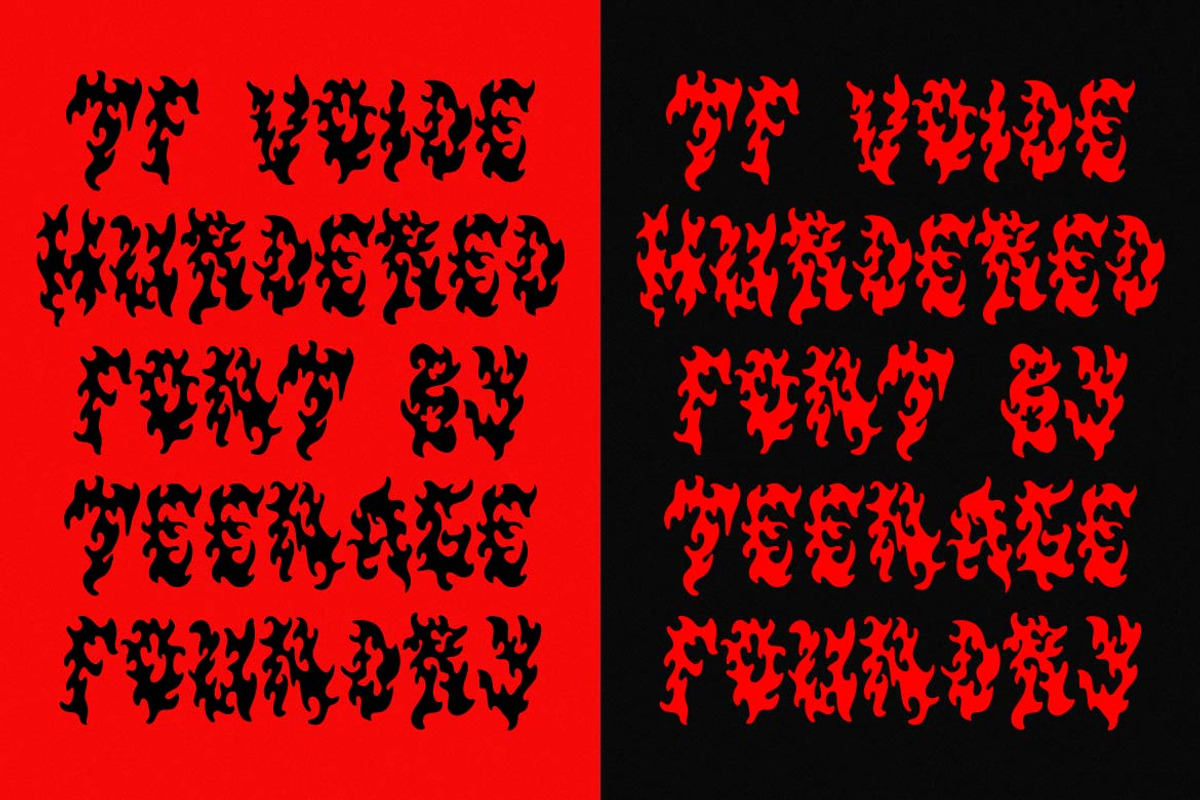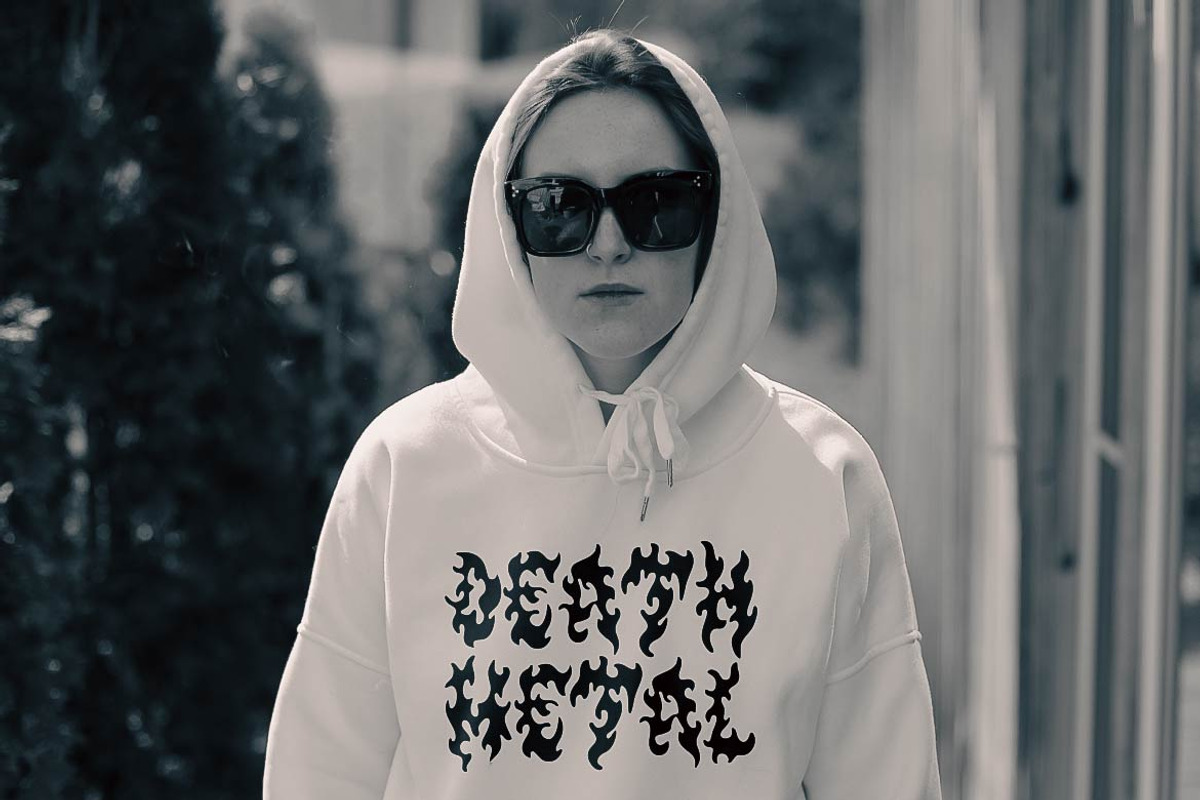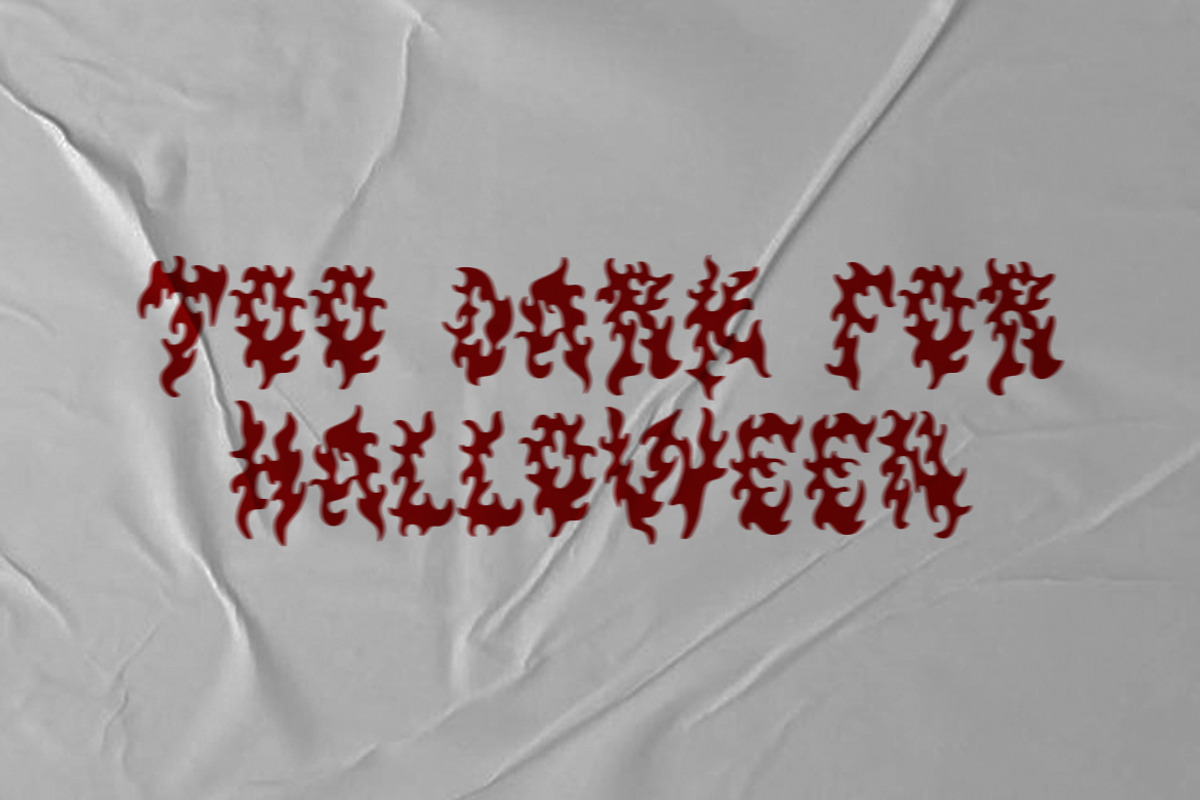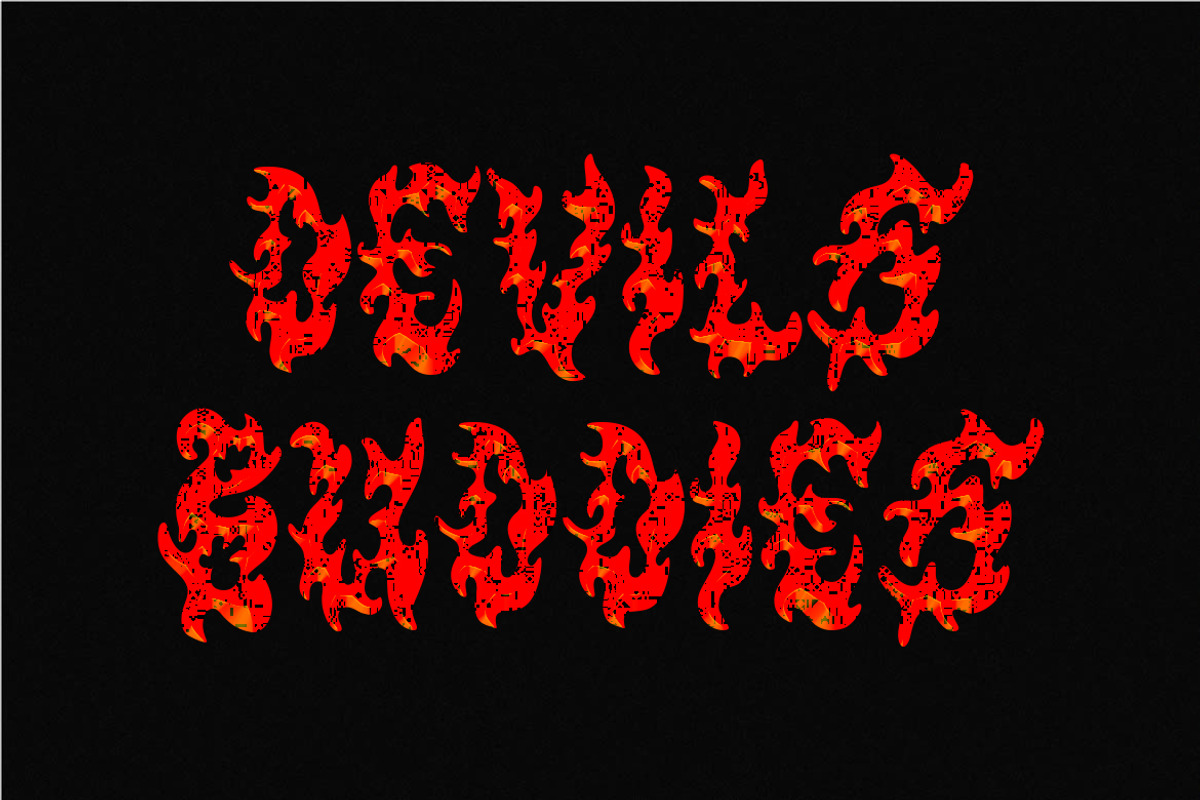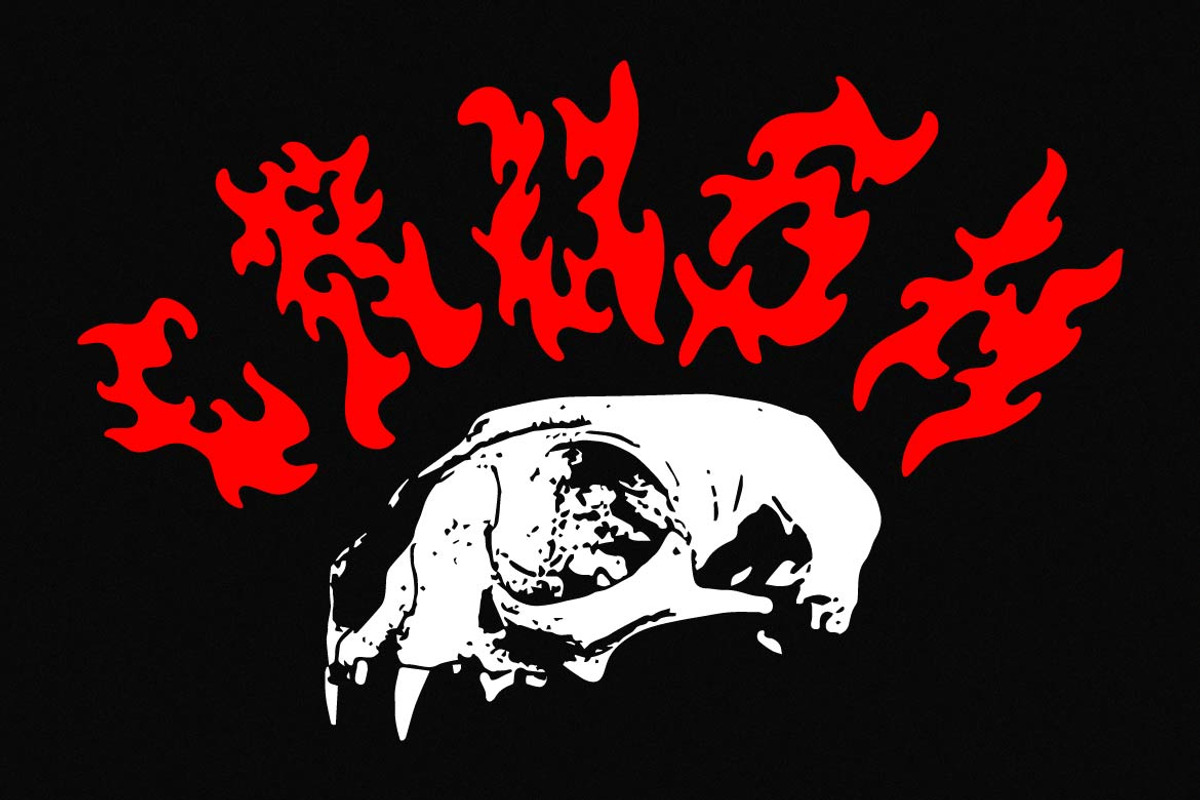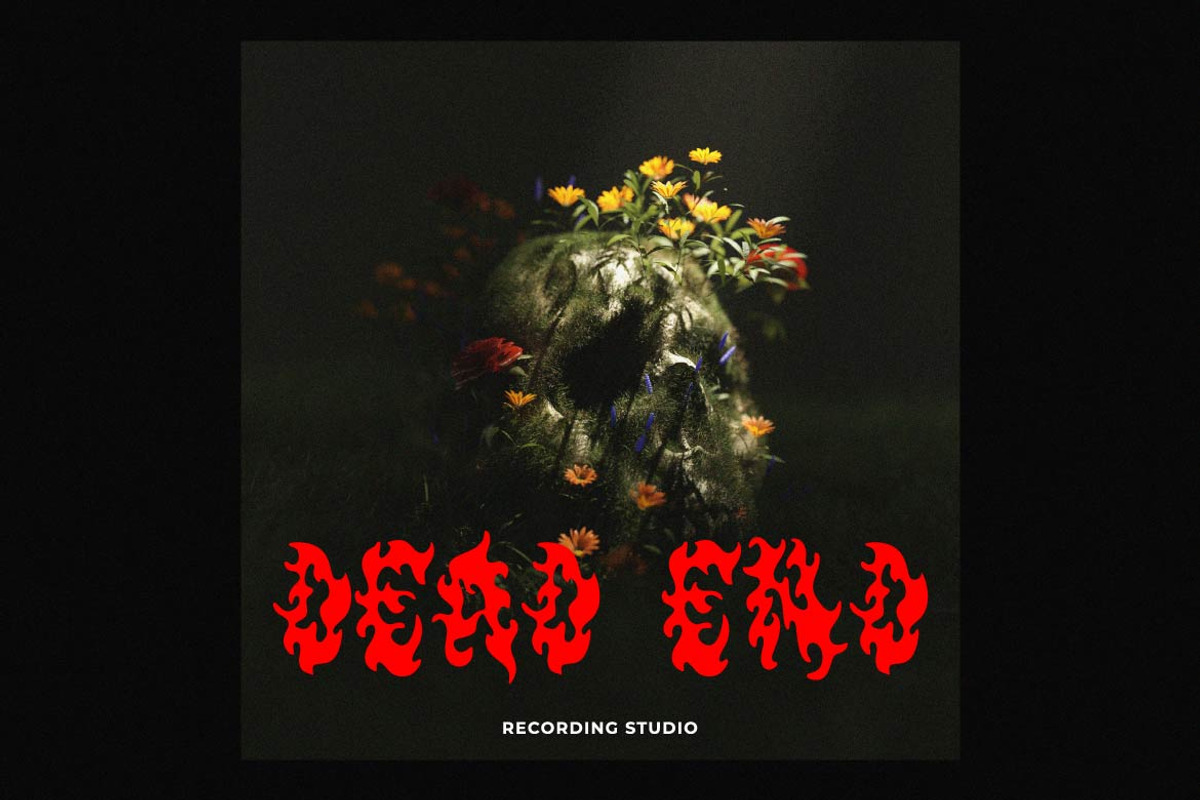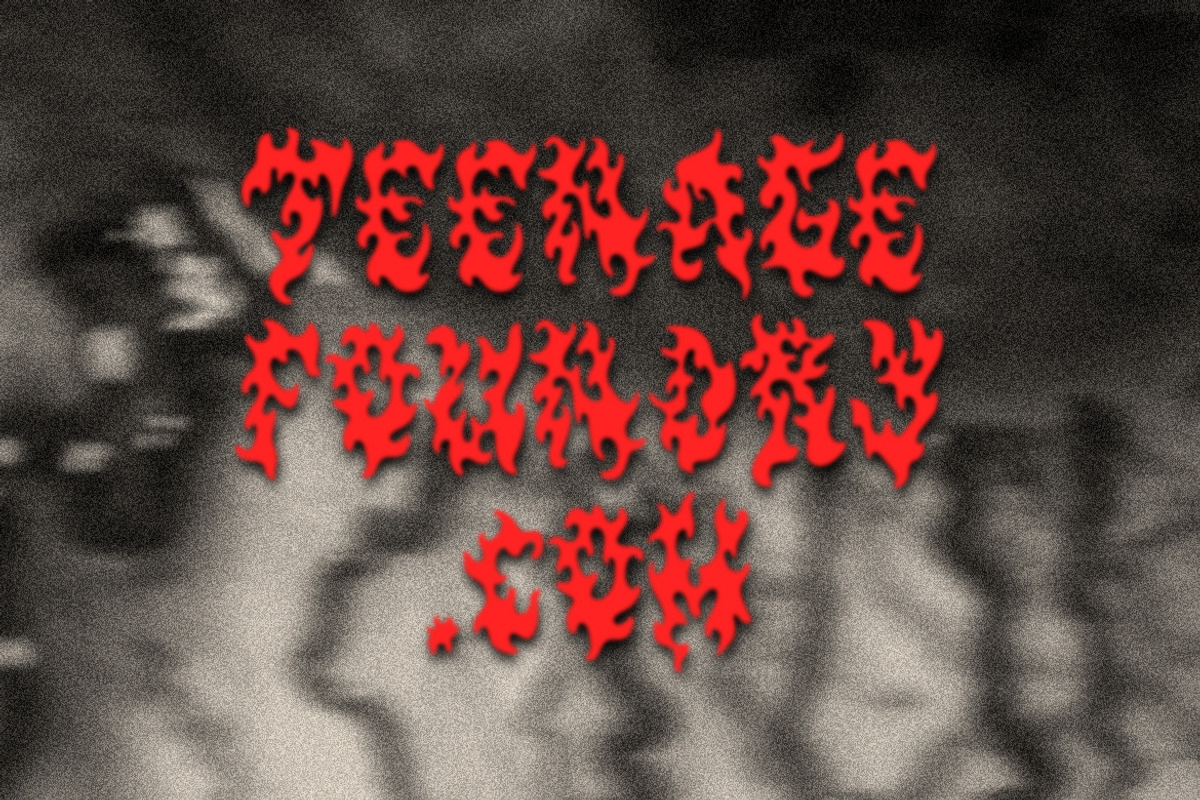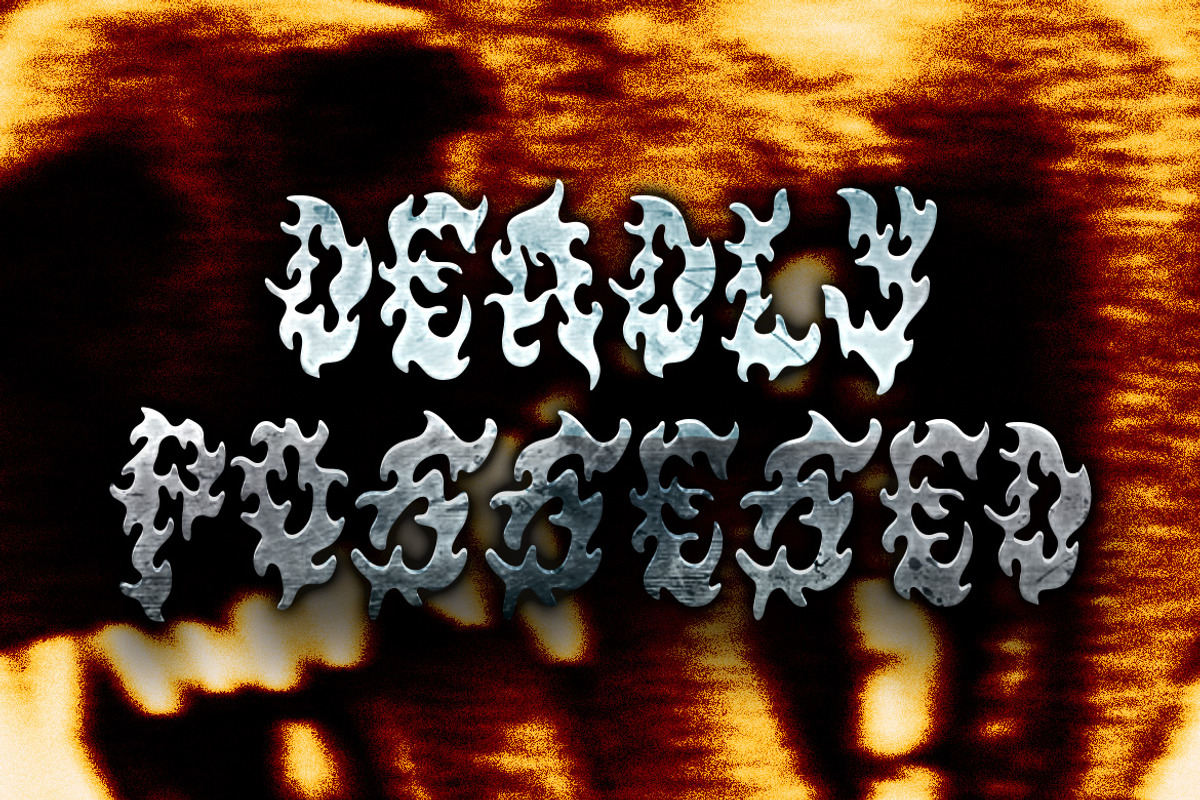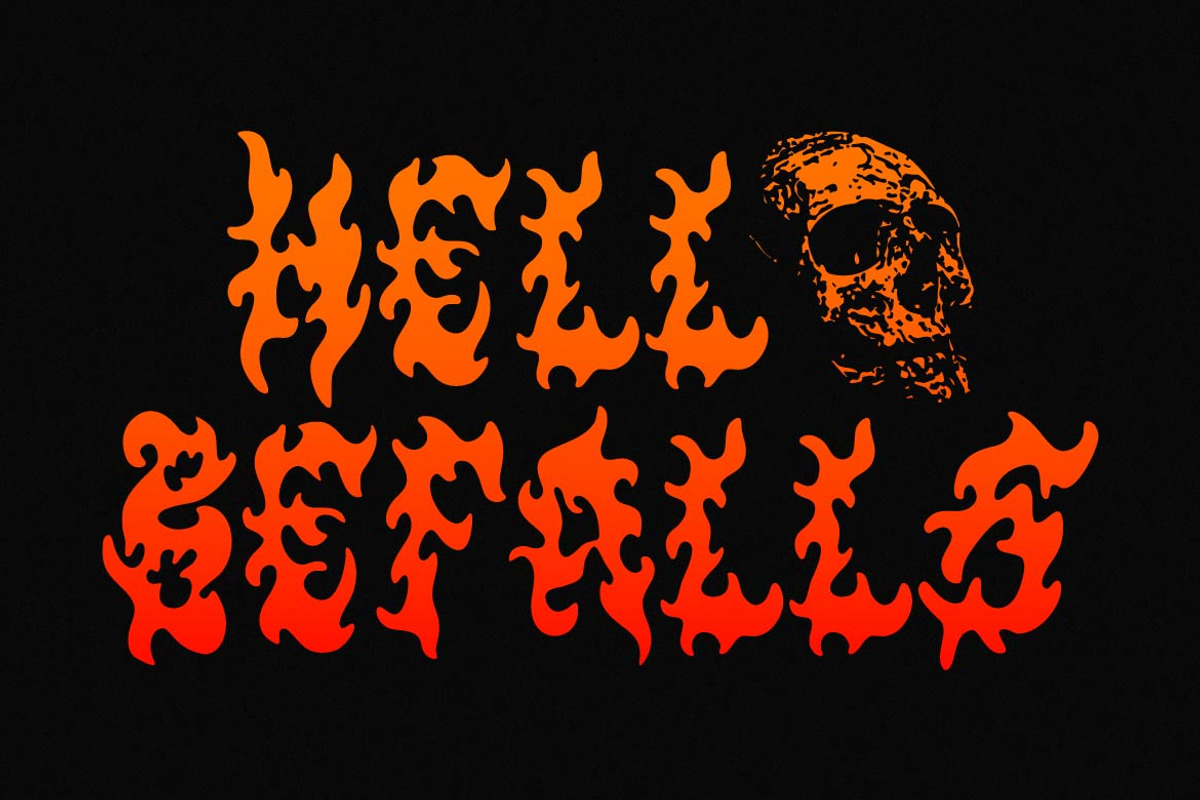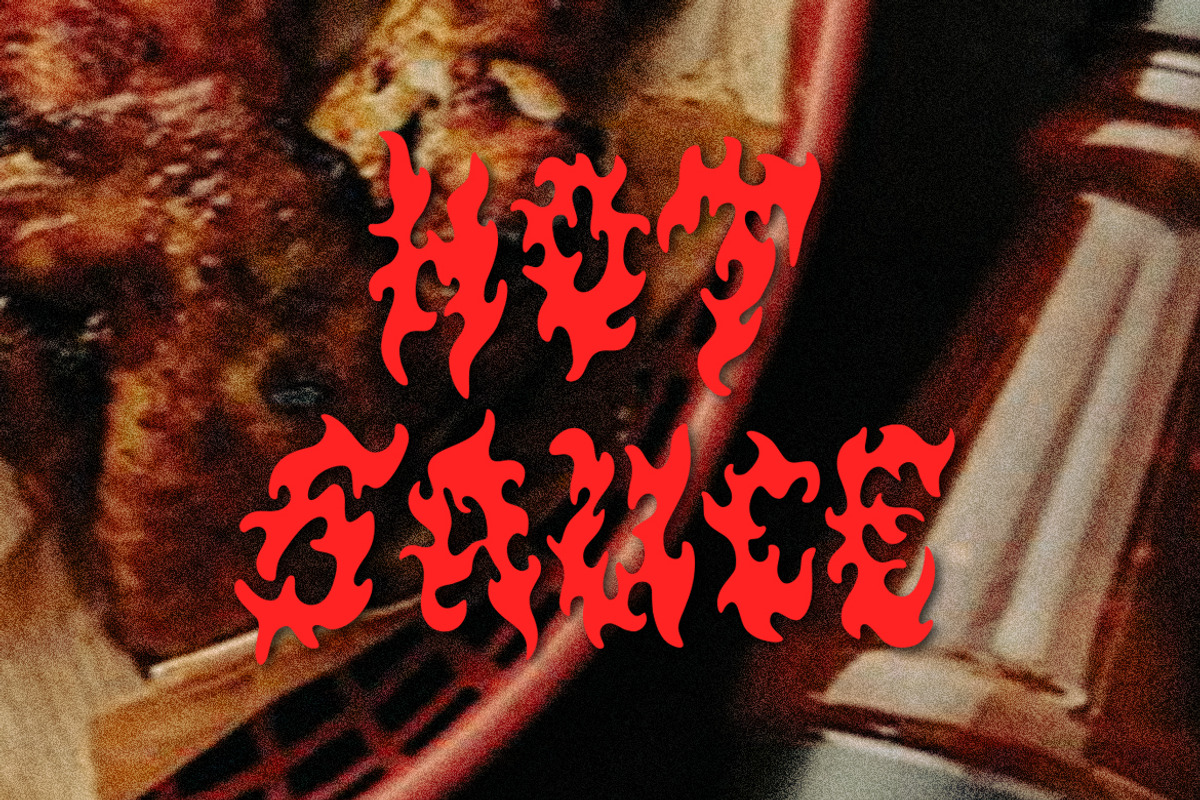
TF Voide Murdered
Introducing
TF Voide Murdered - Death Metal Font. Our Death Metal Font is the perfect tool to amplify the raw energy and intensity of your designs. Crafted with meticulous attention to detail, this font embodies the essence of heaviness, chaos, and rebellion.
Featuring jagged edges, sharp contours, and intricate letterforms, our Death Metal Font exudes a ferocious brutality that will leave a lasting impact on your audience. Each character is meticulously designed to evoke a sense of darkness and aggression, making it an ideal choice for album covers, band logos, merchandise, and more.